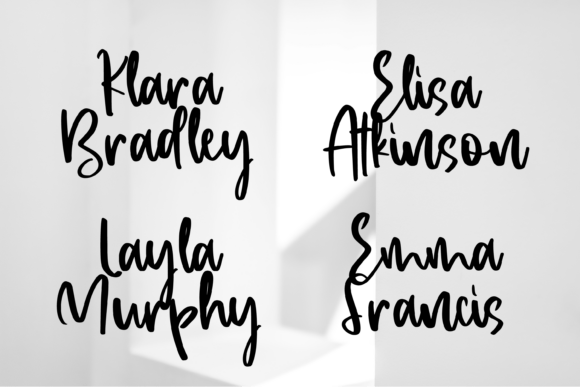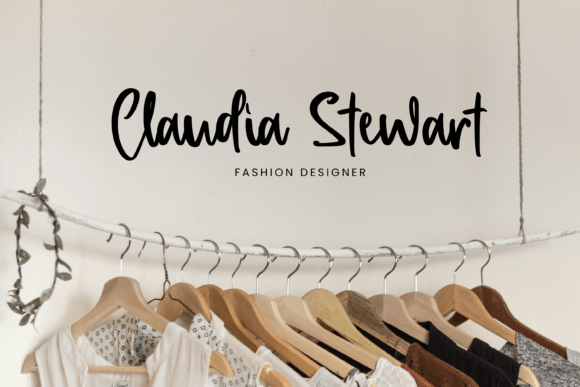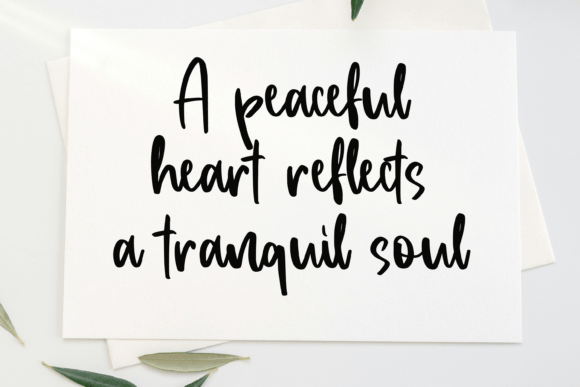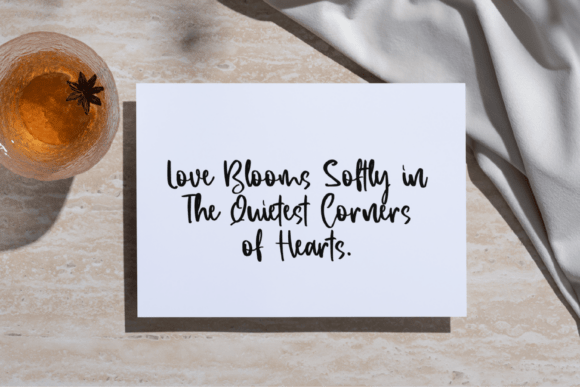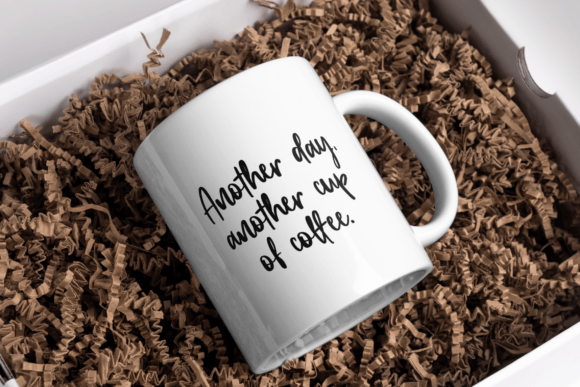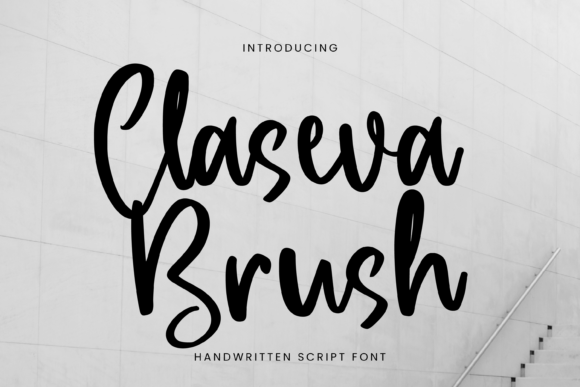
Meet Claseva: The Chic Handwritten Script Font for Elegant Designs
In the world of typography, few fonts manage to strike a balance between elegance and casual charm. Claseva, a beautiful handwritten script font, is one such exceptional find. Its unique blend of sophistication and laid-back style makes it an ideal choice for a variety of design projects, from wedding invitations and logos to high-end branding and more. In this article, we’ll dive into the captivating world of Claseva and explore what makes it a standout font for designers and crafters alike.
The Essence of Claseva: Elegance Meets Casual Charm
Claseva is more than just a font; it’s an aesthetic experience. This chic, handwritten script font boasts a charming character that can instantly elevate any design. The flawless blend of elegance and casual style in Claseva makes it versatile enough to be used in various contexts, from formal events like weddings to more relaxed, yet upscale, branding projects.
Perfect for Wedding Invitations and Event Designs
Wedding planners, event designers, and stationery enthusiasts will adore Claseva for its romantic and sophisticated feel. This font is tailor-made for wedding invitations, save-the-date cards, and other event-related designs, adding a personal touch that makes each piece memorable. Its elegant strokes and charming ligatures evoke a sense of luxury and intimacy, perfect for celebrating special occasions.
A Logo and Branding Powerhouse
For businesses looking to make a statement, Claseva offers a unique opportunity to stand out. Its distinctive character can help create logos and brand identities that are not only visually appealing but also tell a story of sophistication and approachability. Whether you’re launching a luxury brand or a creative startup, Claseva can help you craft a brand image that’s both refined and relatable.
What Makes Claseva Stand Out?
• Unique Aesthetic: Claseva’s design is carefully crafted to offer a fresh take on traditional script fonts, making it perfect for designers looking for something new and inspiring.
• Versatility: From digital platforms to print materials, Claseva’s adaptability makes it suitable for a wide range of applications.
• Elegance and Readability: Despite its elegant and cursive nature, Claseva remains highly legible, ensuring your message is conveyed clearly and effectively.
• Personal Touch: This font adds a warm, personal feel to any design, making it ideal for projects where you want to connect with your audience on a more intimate level.
Tips for Using Claseva in Your Designs
To make the most out of Claseva, consider the following tips:
• Pair with Neutrals: Let Claseva be the star by pairing it with neutral backgrounds or simple textures that don’t compete for attention.
• Experiment with Colors: While Claseva looks stunning in traditional black and white, don’t be afraid to experiment with colors that match your brand or event theme.
• Mix and Match: Combine Claseva with complementary fonts for added depth and interest in your designs.
Claseva is not just a font; it’s a design statement. Its unique blend of elegance and casual charm makes it an invaluable asset for designers and crafters working on upscale projects. Whether you’re creating wedding invitations, designing a logo, or crafting a brand identity, Claseva promises to bring a touch of sophistication and a personal feel to your work. With Claseva, you’re not just choosing a font; you’re opting for an aesthetic experience that can elevate your designs to new heights.